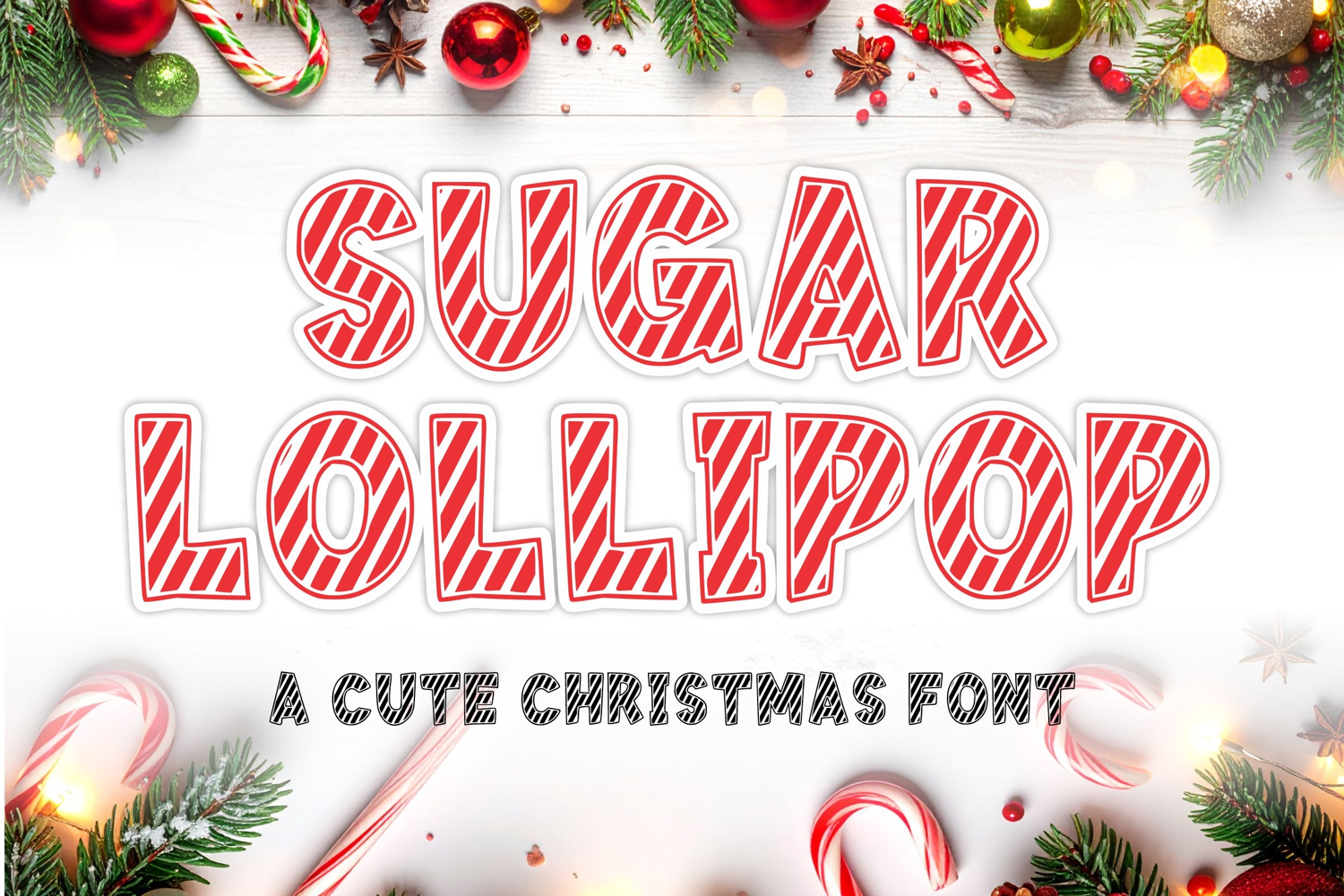
Sugar Lollipop
Sweeten your holiday designs with Sugar Lollipop, a delightful and undeniably festive display font that instantly evokes the fun of peppermint candies and seasonal treats.
This typeface features bold, chunky letterforms with an intentionally rough, slightly jagged outline, giving it a hand-cut or embossed aesthetic. Its core uniqueness lies in the diagonal striped fill (suggesting candy cane patterns), which transforms simple text into a vibrant, ready-to-use Christmas decoration.